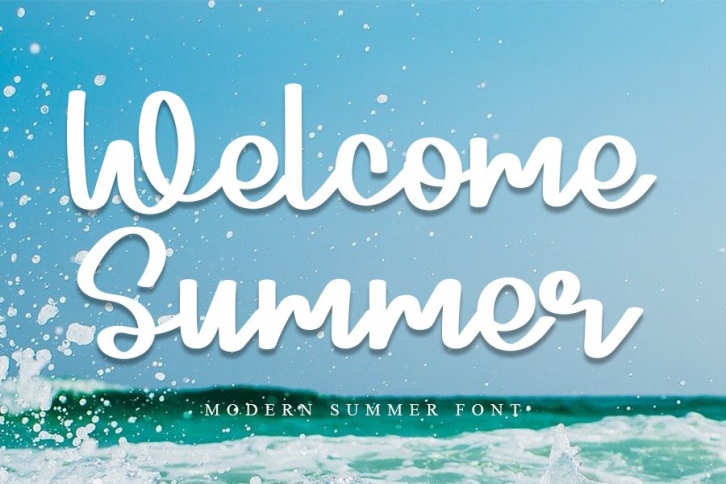
Welcome Summer is a gorgeous font that was realeased on March 10, 2021. The font can be used in many style contexts and design environments. Perfect for invitations, magazines, websites, logos, and more! It was designed by KINSTUDIO and the file size is 21.89 MB. Thanks for checking out this font!